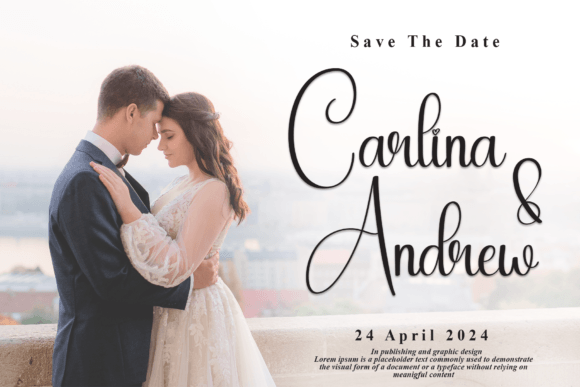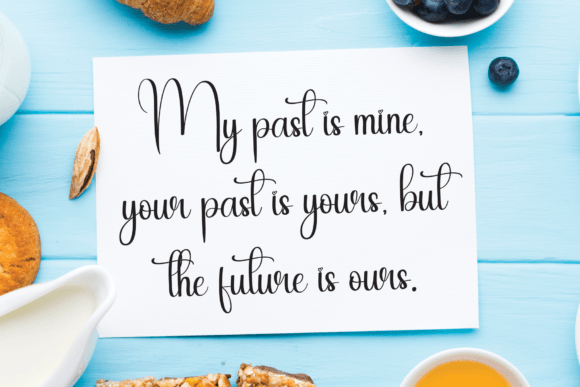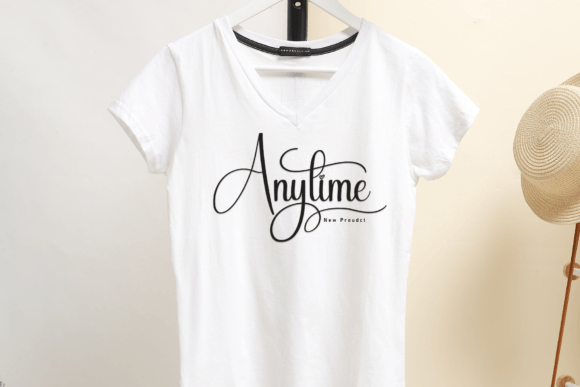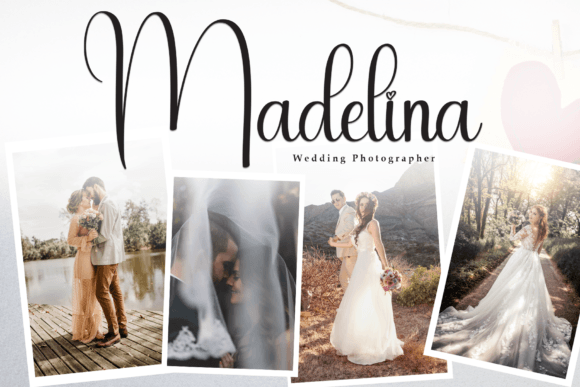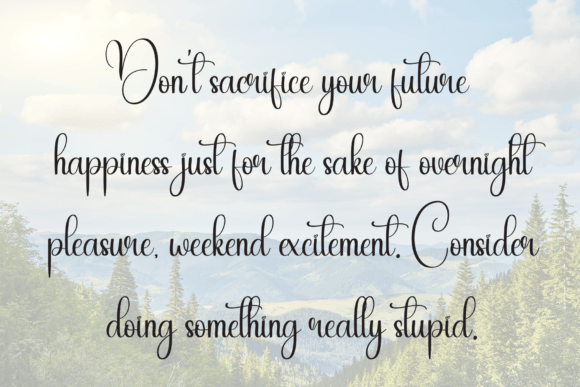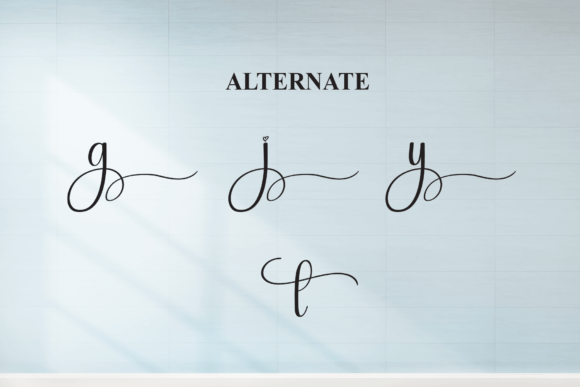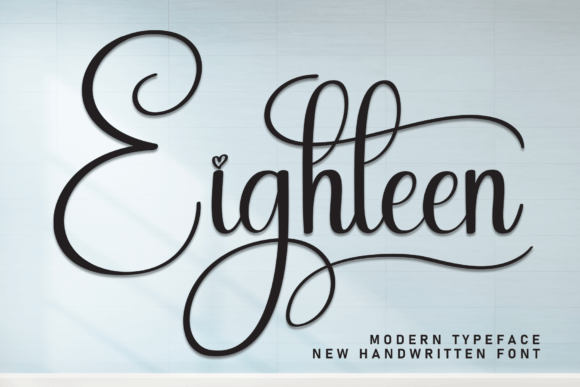
Eighteen Font: Elevate Your Designs with Elegance and Sophistication
In the world of typography, few fonts manage to capture the essence of elegance and sophistication as effectively as Eighteen Font. This stunning script font is a masterpiece of design, boasting a level of refinement and poise that instantly elevates any project it’s used in. Whether you’re working on wedding invitations, thank you cards, quotes, greeting cards, logos, business cards, or any other design that requires a touch of handwritten charm, Eighteen Font is the perfect choice.
The Beauty of Eighteen Font
Eighteen Font is a true gem in the realm of script fonts. Its stylish and incredibly elegant appearance is characterized by flowing lines, delicate curves, and a sense of fluidity that gives it a distinctly handwritten feel. This font is not just a collection of letters and symbols; it’s an expression of artistry and craftsmanship. Each character is meticulously designed to contribute to the overall aesthetic of the font, making it a joy to use in a variety of creative projects.
One of the standout features of Eighteen Font is its versatility. This font is not limited to a specific type of project or medium. It can be used in digital designs, such as website headers, social media graphics, and email newsletters, as well as in print materials like brochures, posters, and, of course, wedding invitations and greeting cards. The font’s adaptability makes it a valuable addition to any designer’s toolkit, as it can seamlessly transition between different contexts and applications.
Wedding planners, event coordinators, and designers who specialize in creating beautiful wedding invitations and event materials will find Eighteen Font to be an invaluable resource. The font’s elegant and sophisticated appearance is perfectly suited for wedding invitations, save-the-date cards, thank you notes, and other stationery items that require a touch of luxury and refinement. With Eighteen Font, you can create stunning designs that set the tone for a memorable and stylish event.
Adding a Personal Touch to Your Designs
In a world where digital communication dominates, adding a personal touch to your designs can make all the difference. Eighteen Font helps you achieve this by bringing a human element to your work. Its handwritten appearance creates a sense of intimacy and connection, making your designs feel more approachable and engaging. Whether you’re designing for a client or working on a personal project, Eighteen Font can help you create something truly special and meaningful.
Why Choose Eighteen Font?
There are many script fonts available, but Eighteen Font stands out for several reasons:
- Elegance and Sophistication: Eighteen Font exudes a level of elegance and sophistication that’s hard to find in other script fonts.
- Versatility: The font’s versatility makes it suitable for a wide range of projects and applications.
- Handwritten Appearance: The font’s handwritten appearance adds a personal touch to your designs, making them more engaging and memorable.
Eighteen Font is a stylish and incredibly elegant script font that can elevate your designs to new heights. Its stunning appearance, versatility, and ease of use make it an excellent choice for designers and crafters looking to add a touch of sophistication and elegance to their work. Whether you’re creating wedding invitations, greeting cards, logos, or any other design that requires a handwritten touch, Eighteen Font is sure to impress. With its ability to bring a personal and human element to your designs, Eighteen Font is an invaluable resource for anyone looking to create beautiful and memorable work.